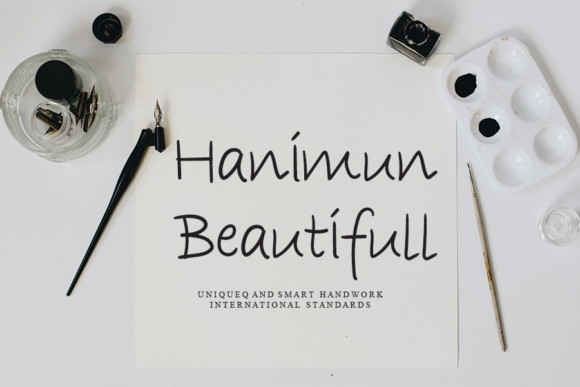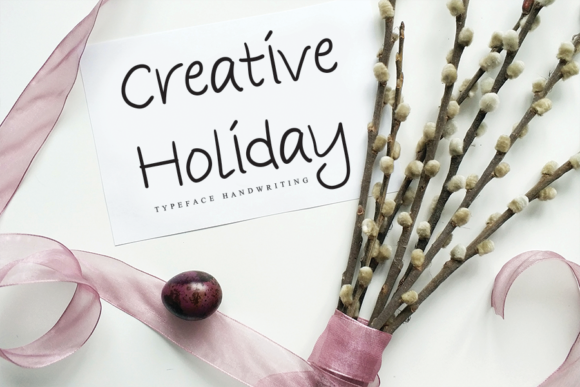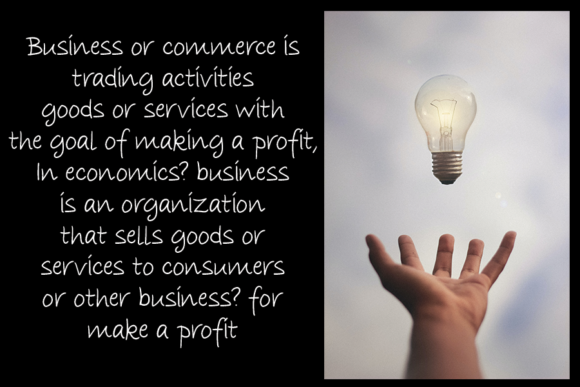
Introduction to Rollina Font
Rollina is a friendly handwritten font with a modern style.
It will elevate a wide range of design projects to the highest level, be it branding, headings, wedding designs, invitations, signatures, logos, labels, and much more .
Key Features of Rollina Font
Why Choose Rollina Font?
Rollina Font offers exceptional quality and versatility, making it a valuable addition to your design toolkit. Whether you’re creating for personal projects or commercial use, Rollina Font delivers professional results.